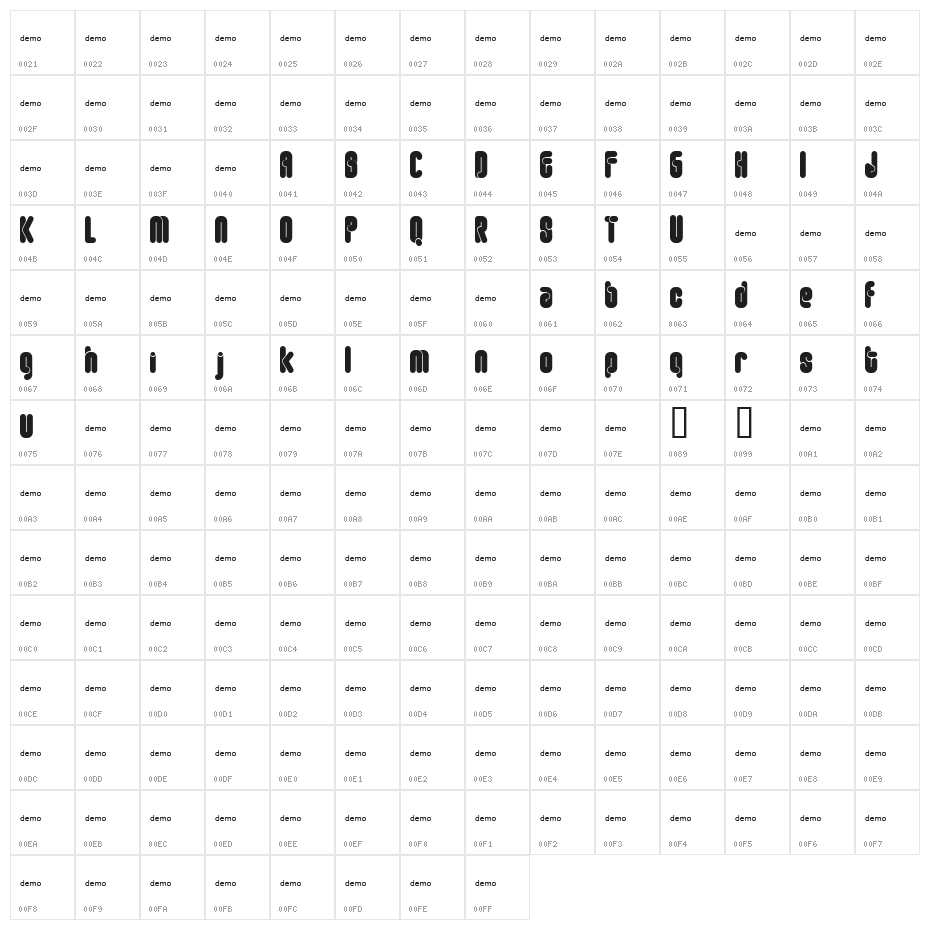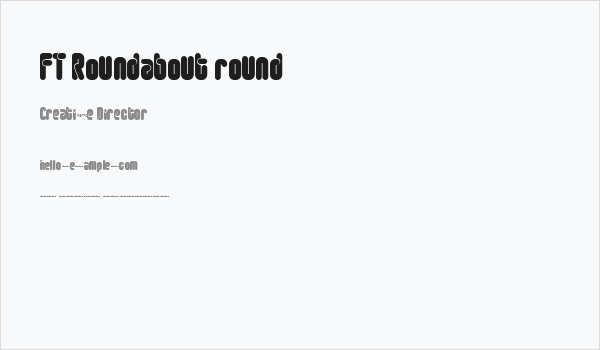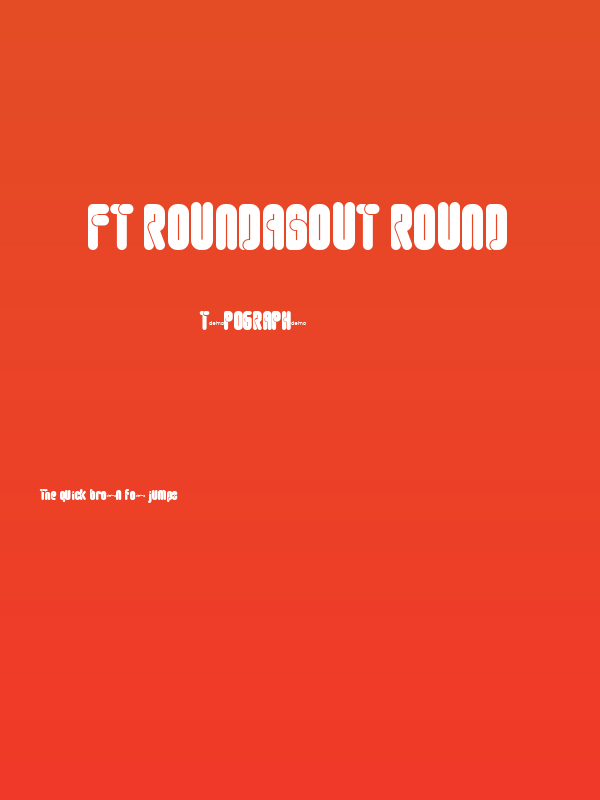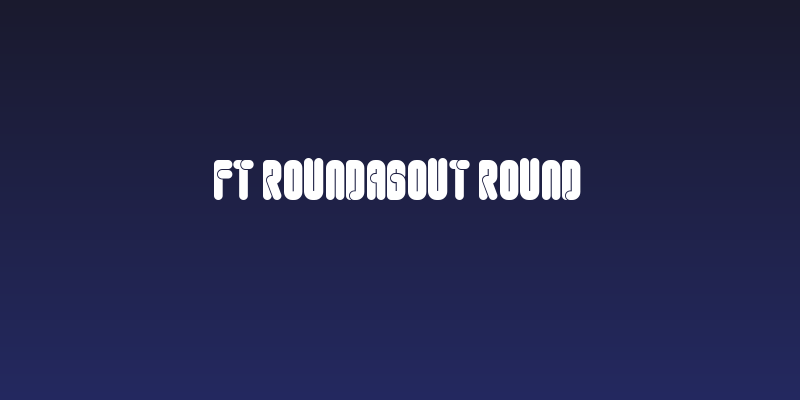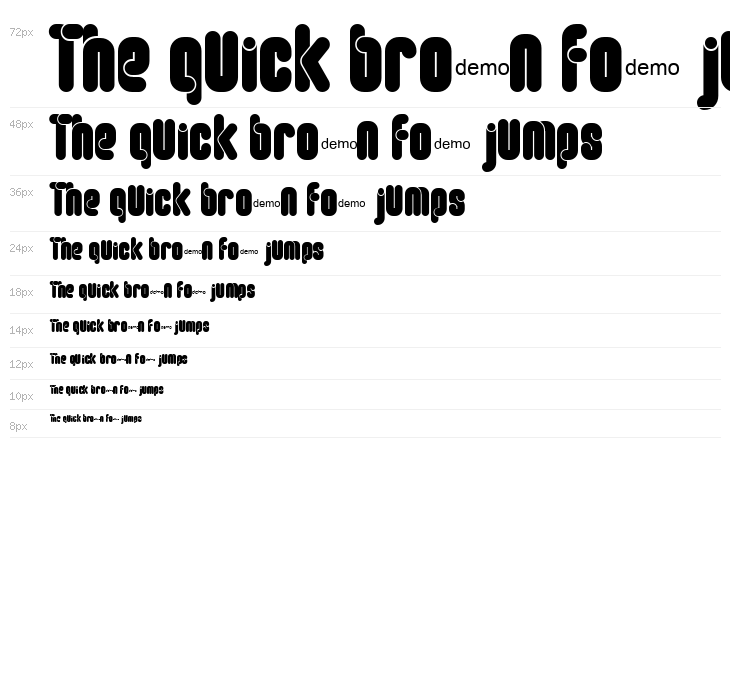
FT Roundabout round Font
FT Roundabout round Description
This font features a bold and rounded style, characterized by its thick, uniform strokes and smooth curves. The letters are tightly spaced, creating a cohesive and compact appearance. The design is modern and playful, with a distinctive geometric influence that makes it stand out. The uppercase and lowercase letters maintain a consistent weight, contributing to its bold presence. The font's unique style is ideal for making a strong visual impact, with its rounded edges adding a friendly and approachable feel.
| Proposed Projects | Ideal for branding, logos, posters, and headlines where a strong visual impact is desired. |